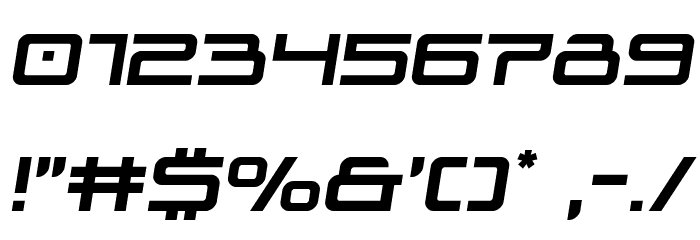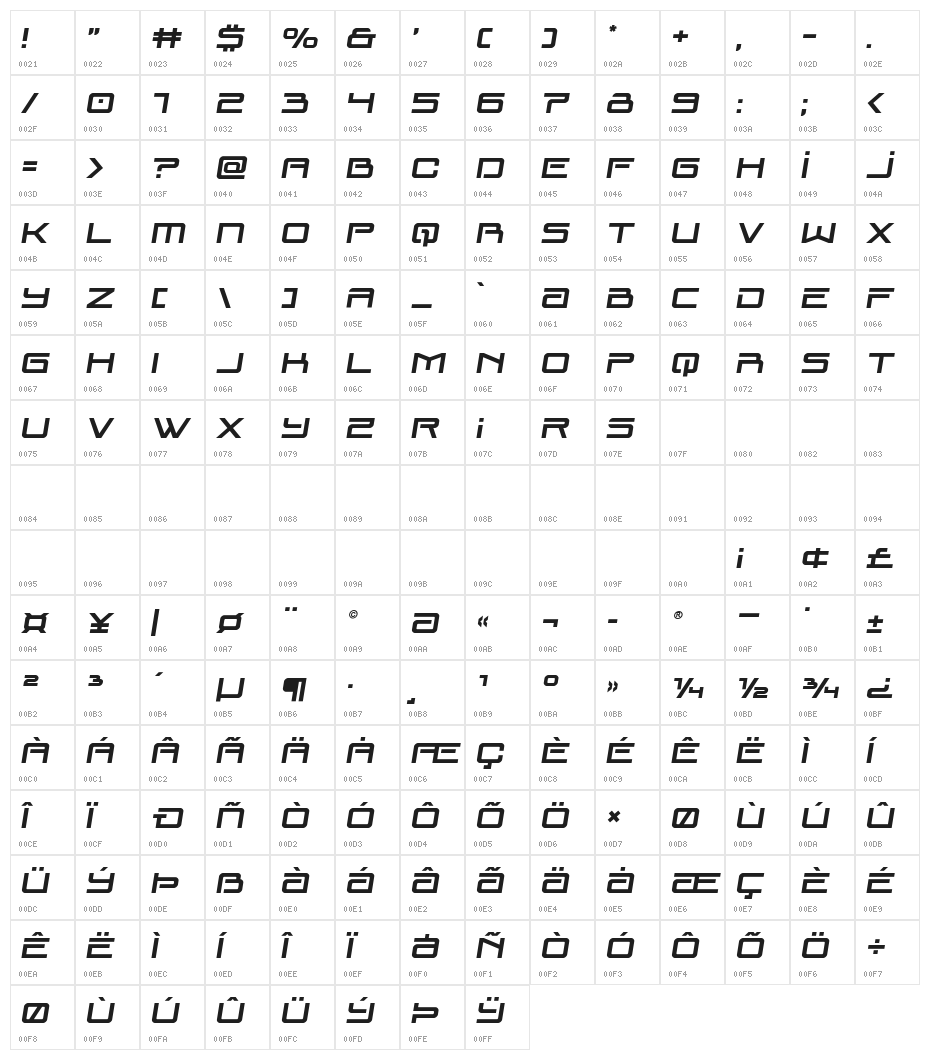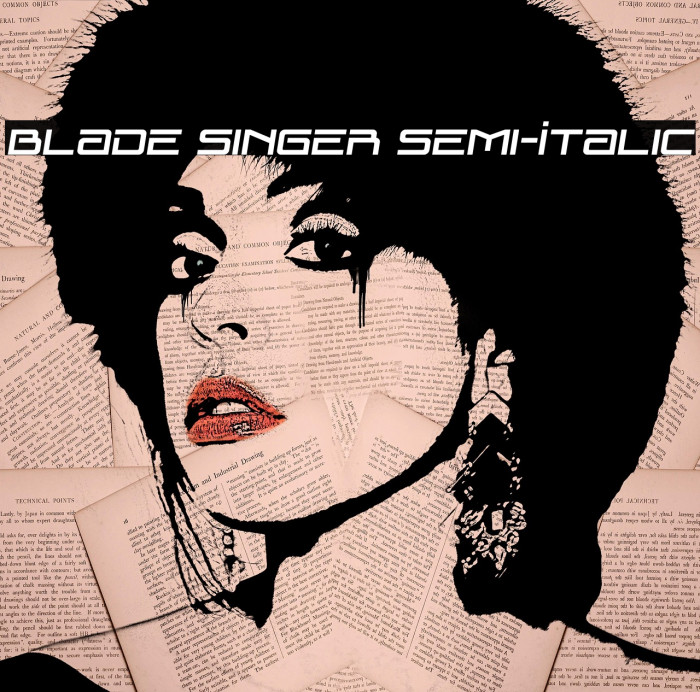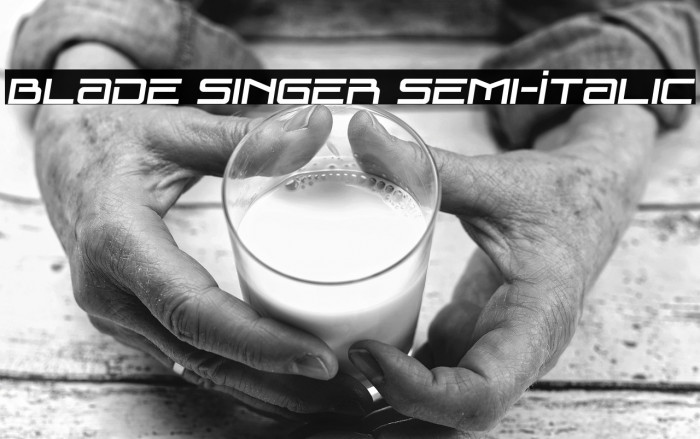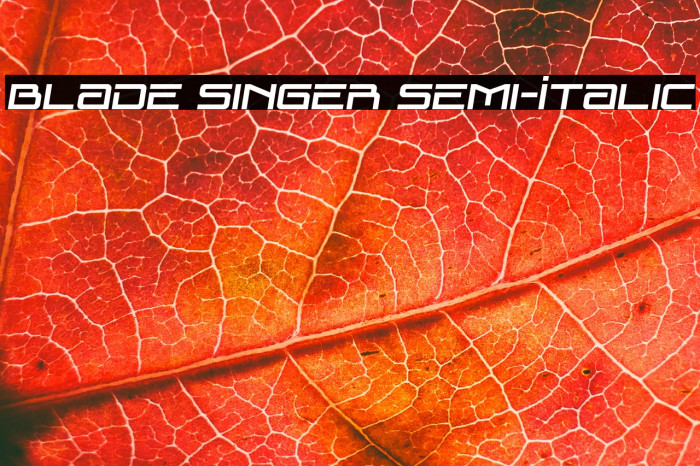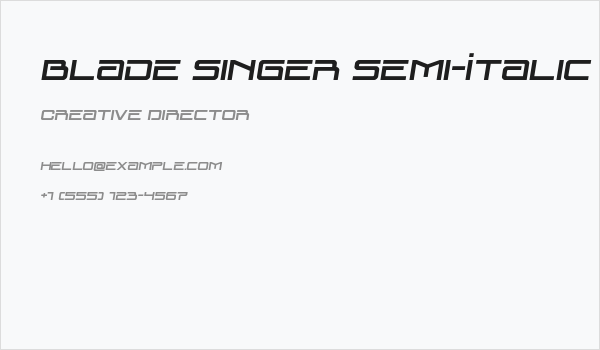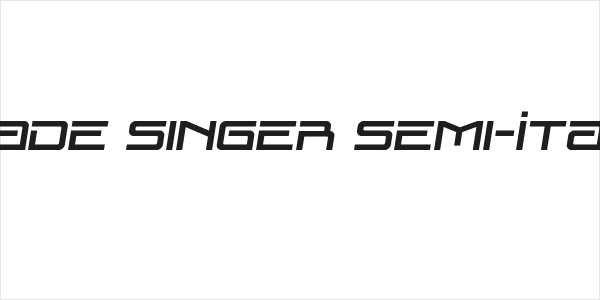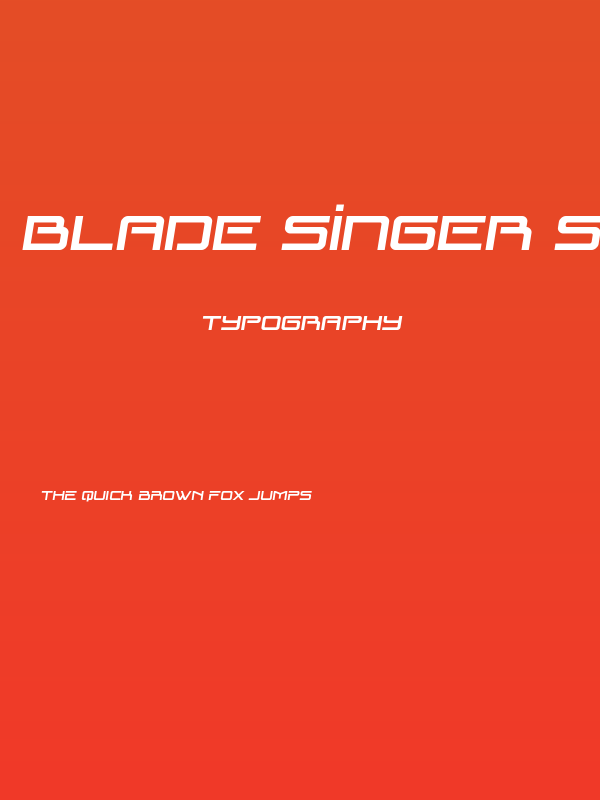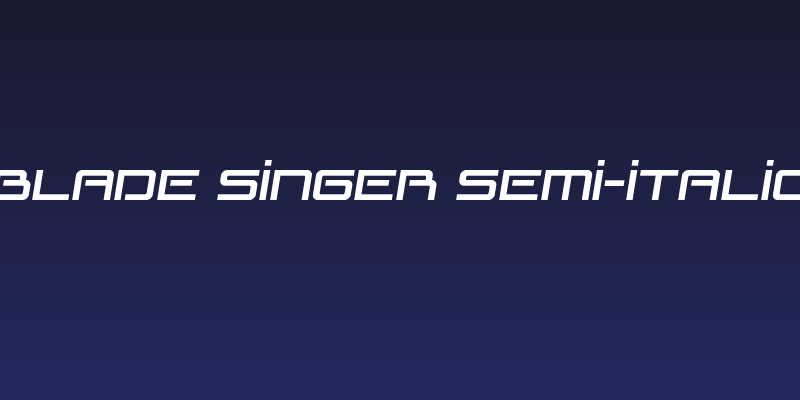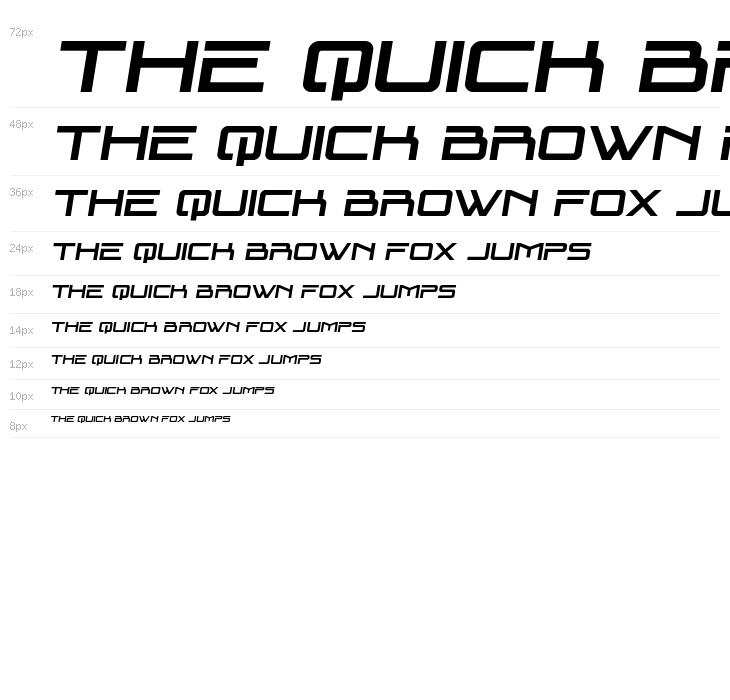
Blade Singer Semi-Italic Font
Blade Singer Semi-Italic Description
This font exhibits a futuristic and sleek design, characterized by its angular and geometric letterforms. The semi-italic slant adds a dynamic and forward-moving feel, making it ideal for modern and tech-oriented projects. The uppercase and lowercase letters maintain a consistent style, with sharp edges and a uniform stroke width. The numerals and special characters follow the same design principles, ensuring a cohesive look across all text elements. The font's distinct style is both eye-catching and readable, making it suitable for a variety of creative applications.